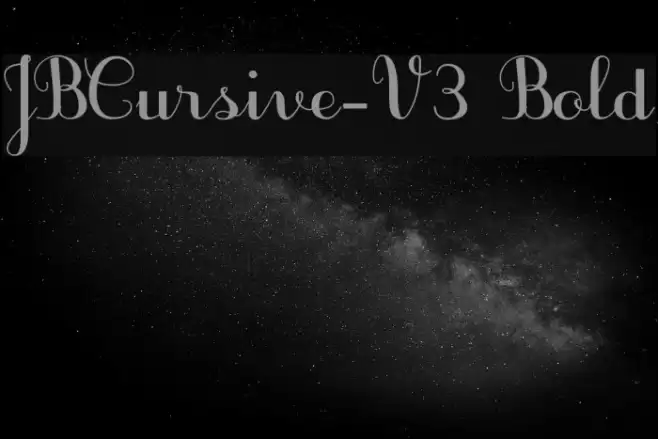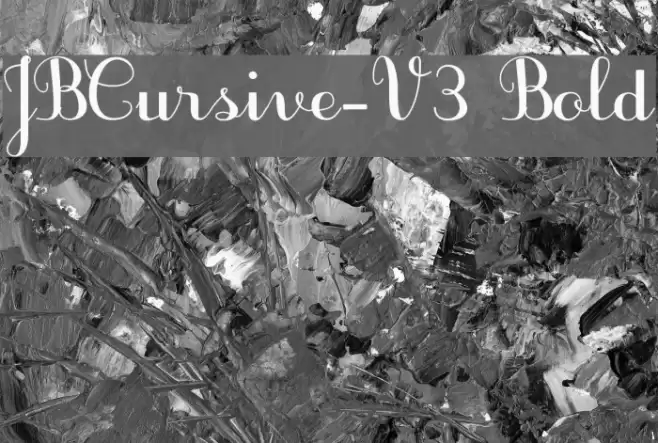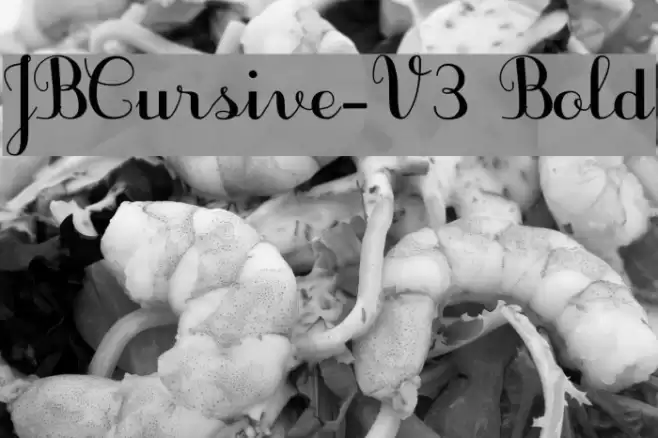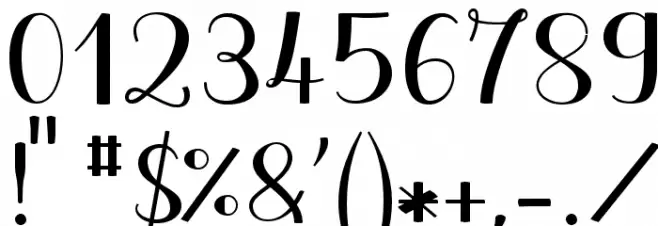
JBCursive-V3 Bold Font
JBCursive-V3 Bold Description
This font features an elegant and flowing cursive style, characterized by its smooth, interconnected letters that create a sense of fluidity and grace. The uppercase letters are ornate, with intricate loops and swirls that add a decorative touch. The lowercase letters maintain a consistent flow, enhancing readability while retaining a sophisticated appearance. Numbers and special characters are designed with the same attention to detail, ensuring a cohesive look across all text elements. This font's bold weight adds emphasis and presence, making it suitable for eye-catching designs.
An elegant, bold cursive font with flowing, interconnected letters and decorative swirls from Uncategorized fonts.
- Proposed Projects: Ideal for wedding invitations, elegant branding, greeting cards, and luxury packaging.
- Use Case: Logos, Headlines, Invitations